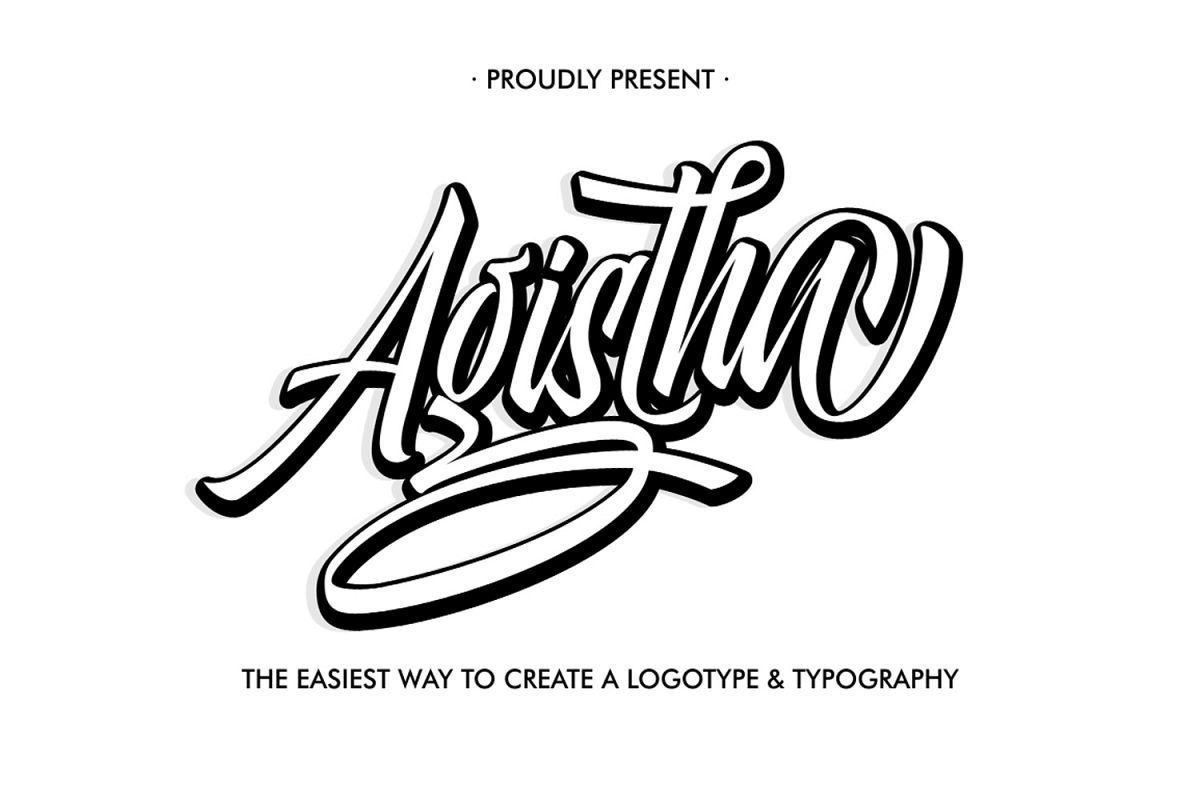
Agista Logotype
Aghista Script is a new smooth font was vectored with
careful. I make this font to follow the trend in the manufacture of
logotype & typography. This font was completely with 99 alternate
characters, very perfect for logotype, typography, t-shirt design, etc
Font Feature
• Covered all basic character, numeral, punctuation and including 99 alternate characters, ligature, etc.